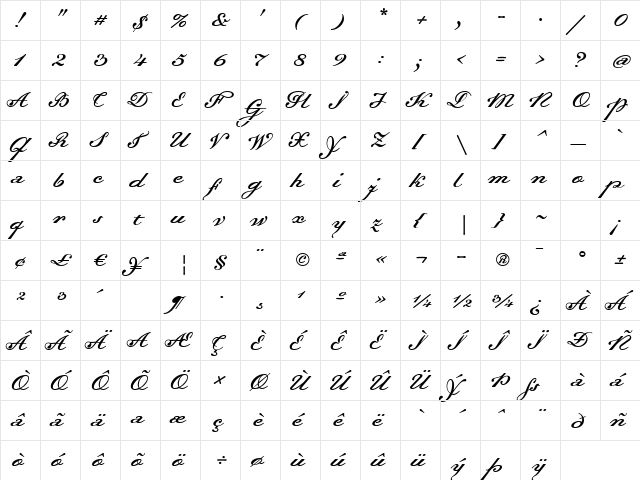
Dalliance Script Display Italic Regular
Design Context for Dalliance Script Display Italic Typeface
Dalliance Script Display Italic brings a calligraphic fluidity to the page — its connecting strokes and expressive curves give it an unmistakably human quality.
Font Pairing: Combine Dalliance Script Display Italic with a simple geometric sans for maximum contrast — the tension between flowing curves and clean structure is a classic typographic pairing.
Pro Tip: Use Dalliance Script Display Italic for short runs of text — names, titles, or taglines. Extended body copy in script faces tires the eye quickly.